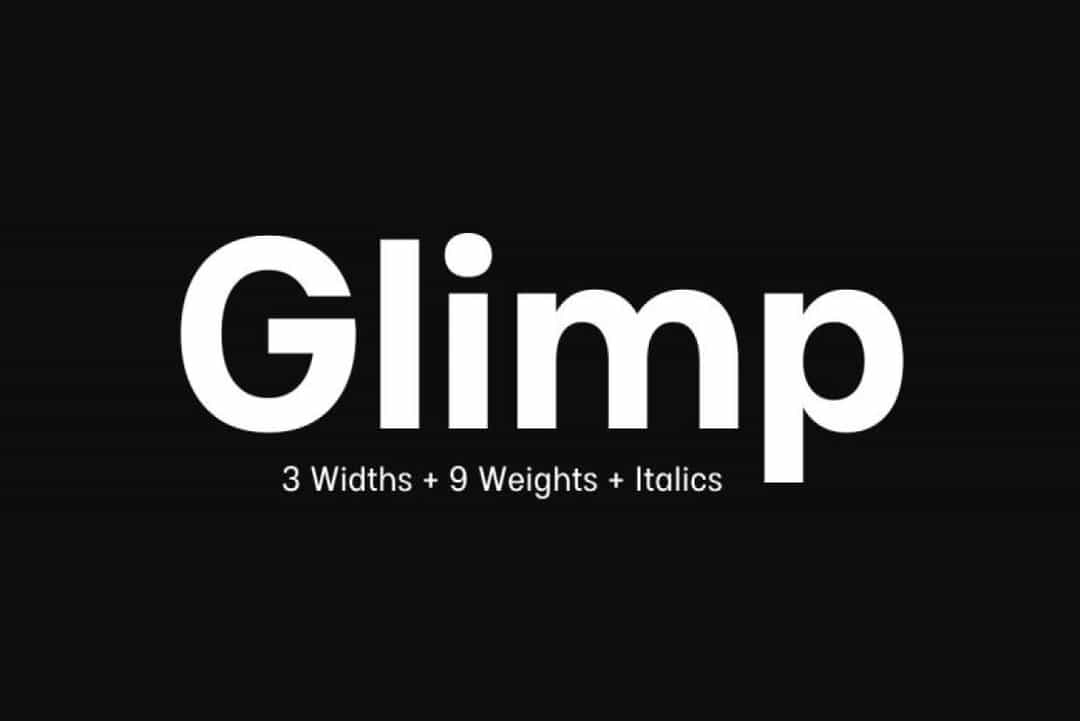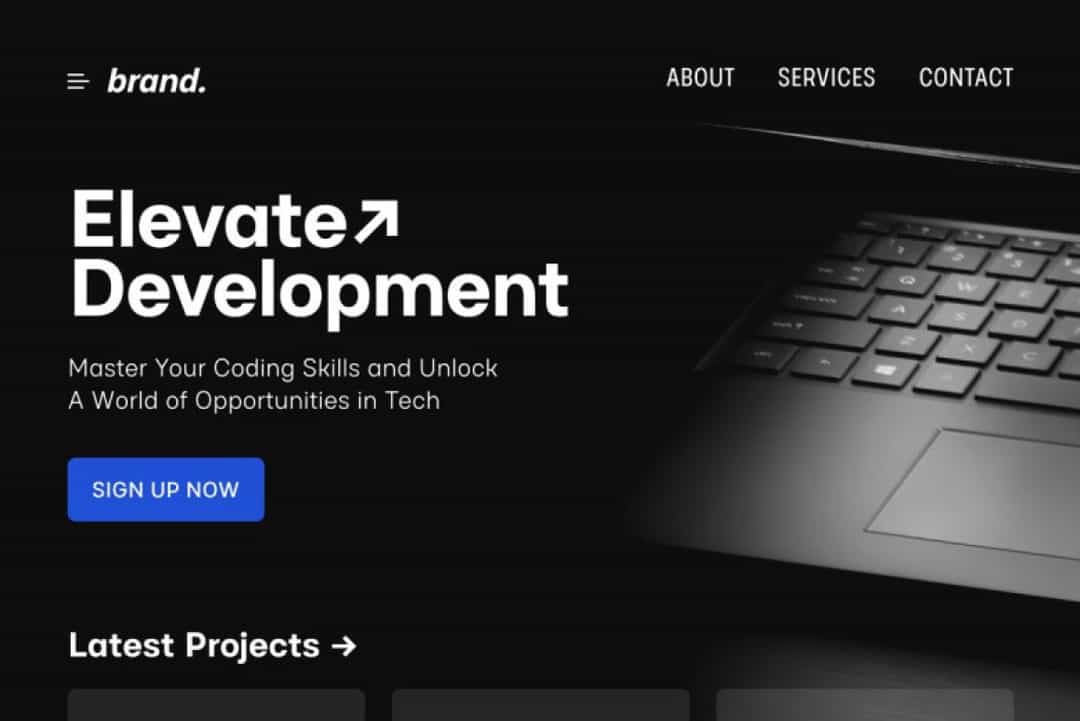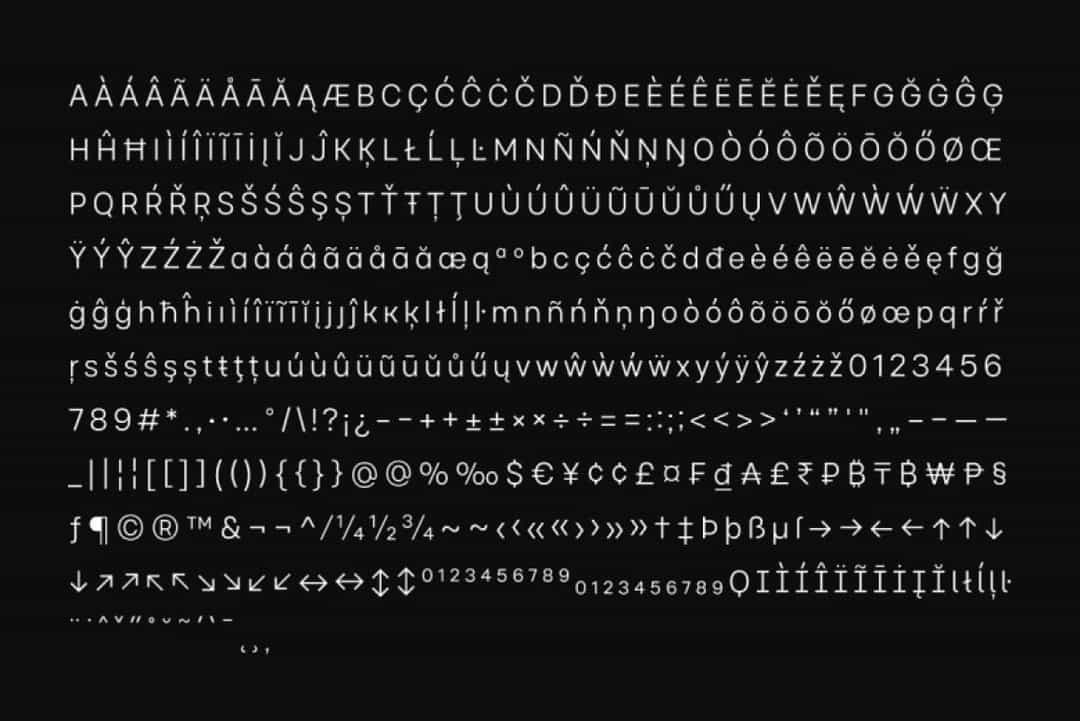
Glimpis is a contemporary sans serif font featuring three widths and 9 weights with italics for ease of reading. Additionally, this font offers open type features including styles, contextual alternative fonts and superscripts that feature case-sensitive subscripts and fractions as well as much more!